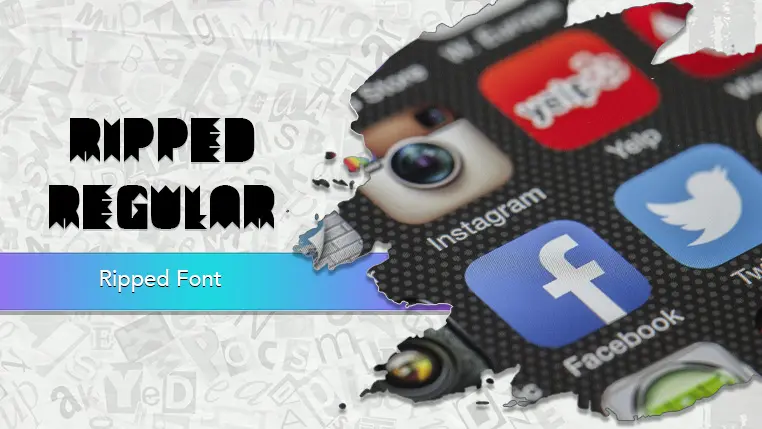
The Ripped font family may be ideal for you if you enjoy working on an artistic design project. The lively, expressive look of this typeface, which was created by Vladimir Nikolic, makes it ideal for Posters, Flyers, Branding and Logos. The font's raw and powerful look makes it ideal for t-shirts, album covers, and other merchandise. It can be used to create impactful and attention-grabbing headlines for posts on platforms like Instagram and Facebook. and other light-hearted visual projects.
Regular are the one primary font styles of the Ripped font family. You may build dynamic, visually appealing text layouts with the distinct flair that each style offers. With crisp, readable lines and a relaxed tone.